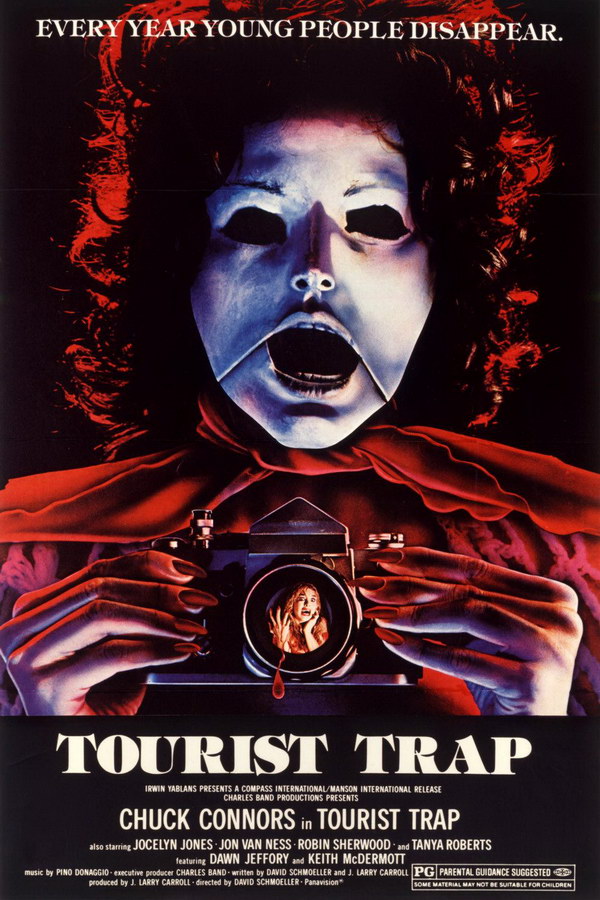
Tourist Trap Font
Fonts in UseTourist Trap is a 1979 horror movie about a group of friends who stumble upon a strange and deadly museum run by a man with telekinetic powers.
The font utilized for the "Tourist Trap" title on the poster is most likely ITC Tiffany Heavy, which is a combination of two typefaces, namely Ronaldson and Caxton. Edward Benguiat designed this font, and you can find additional information about it here.